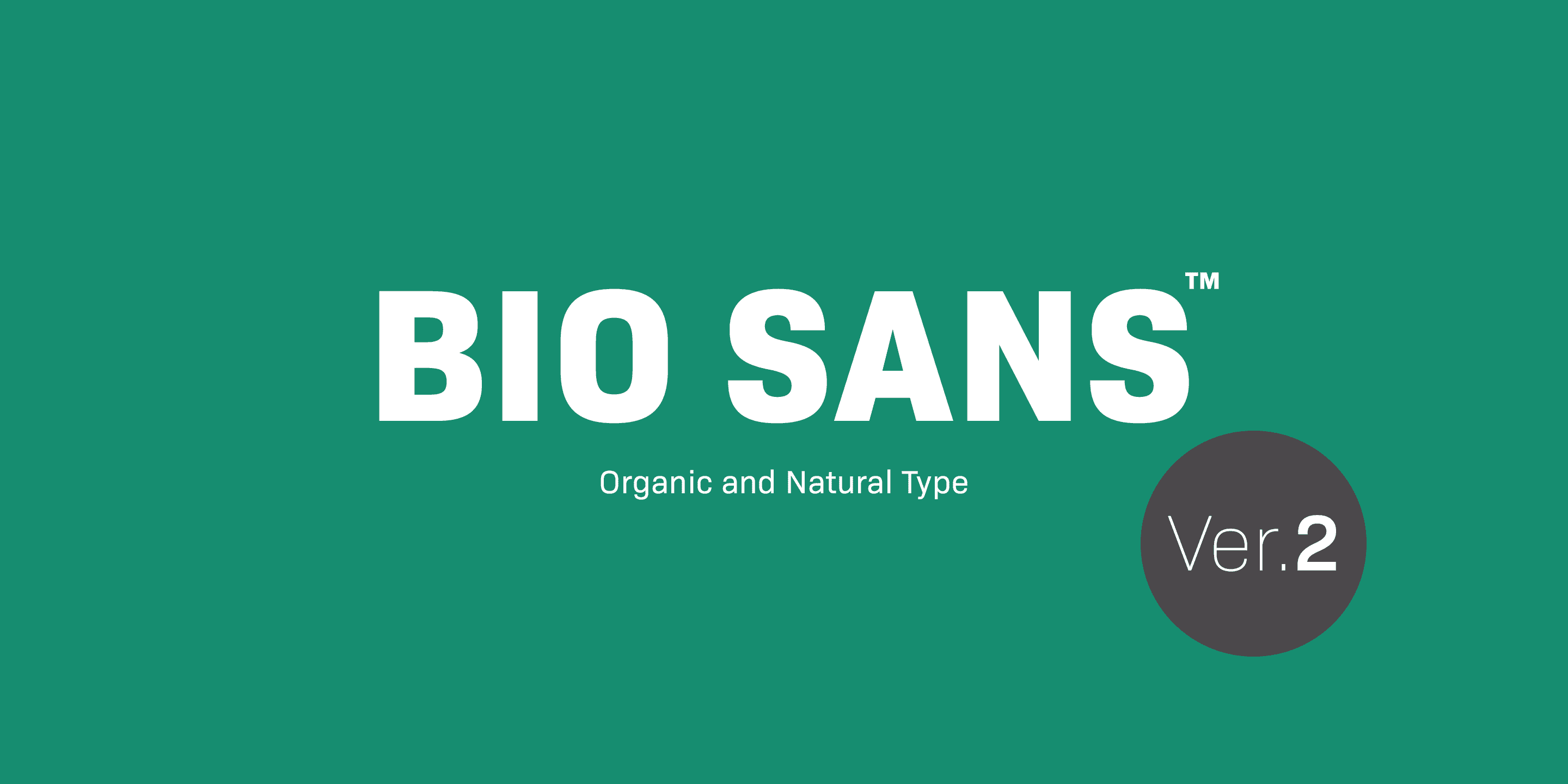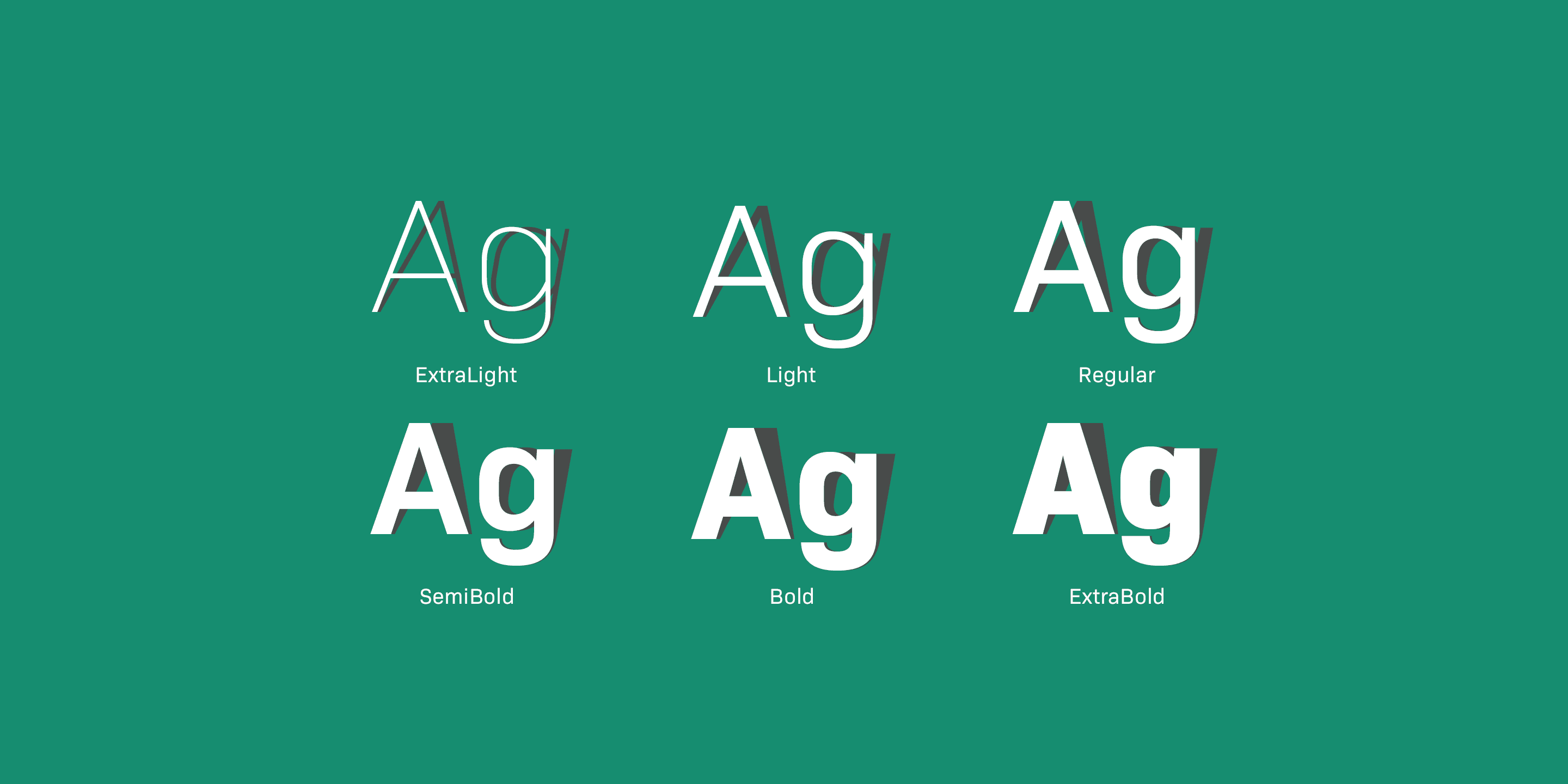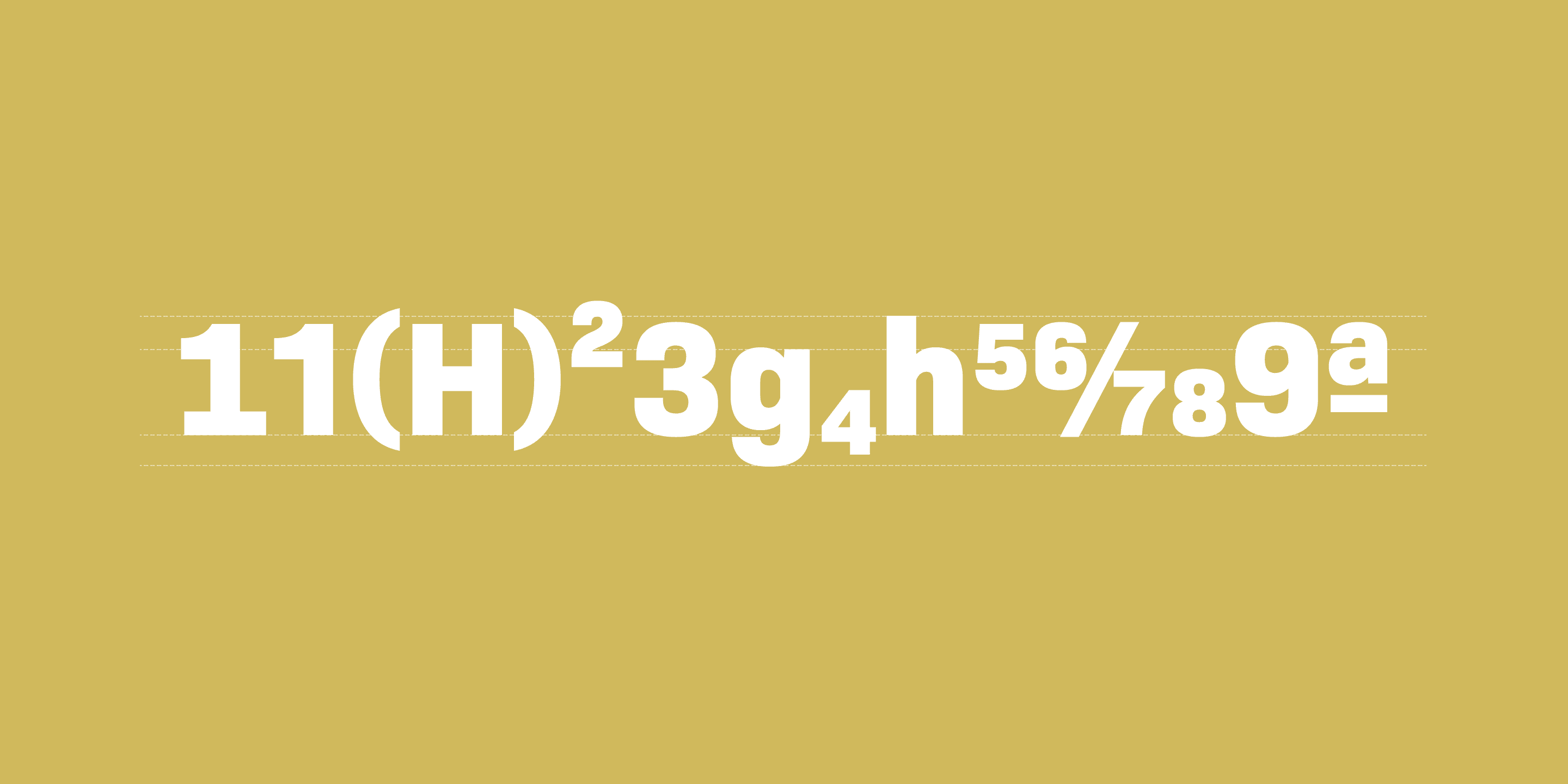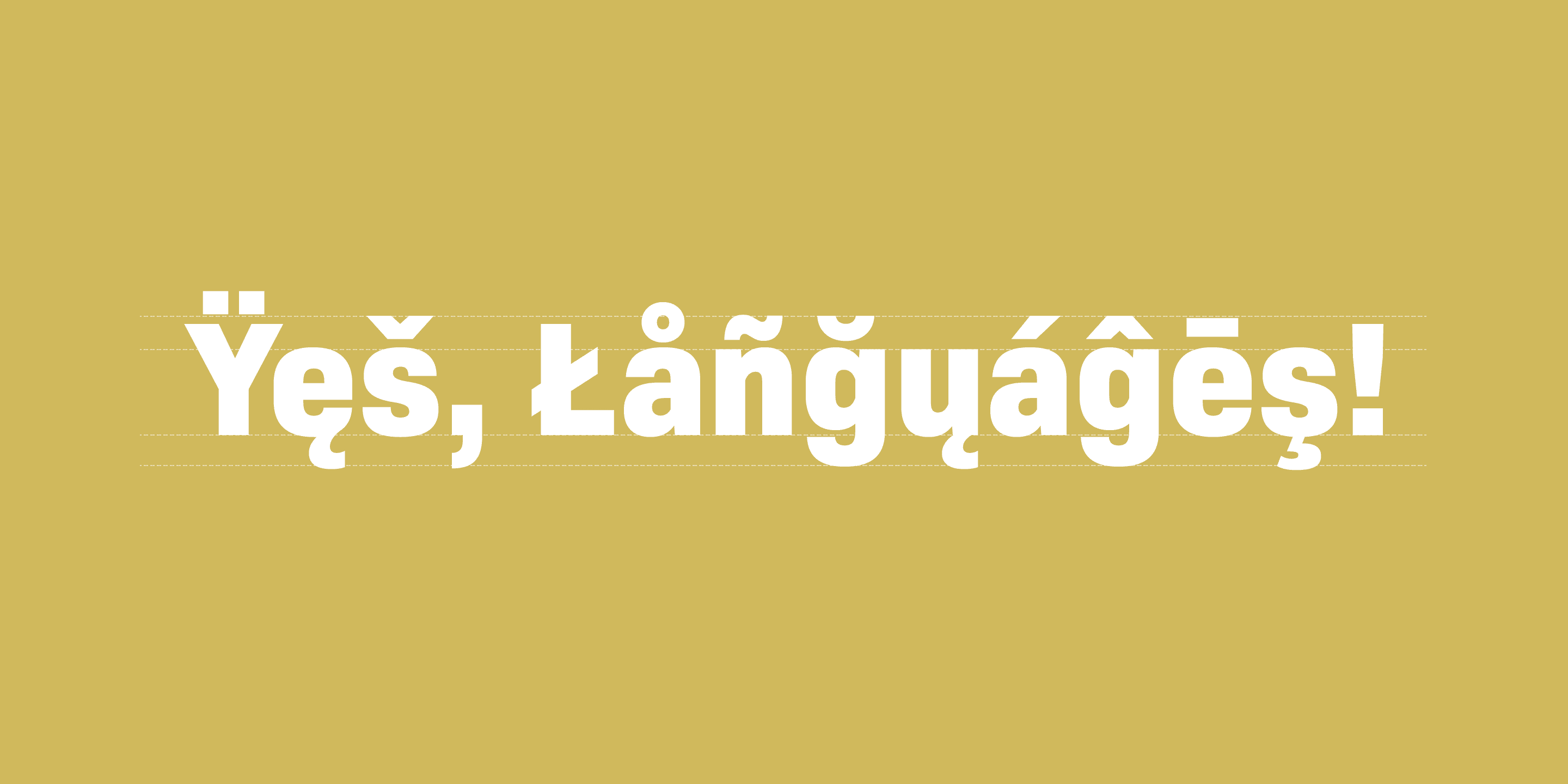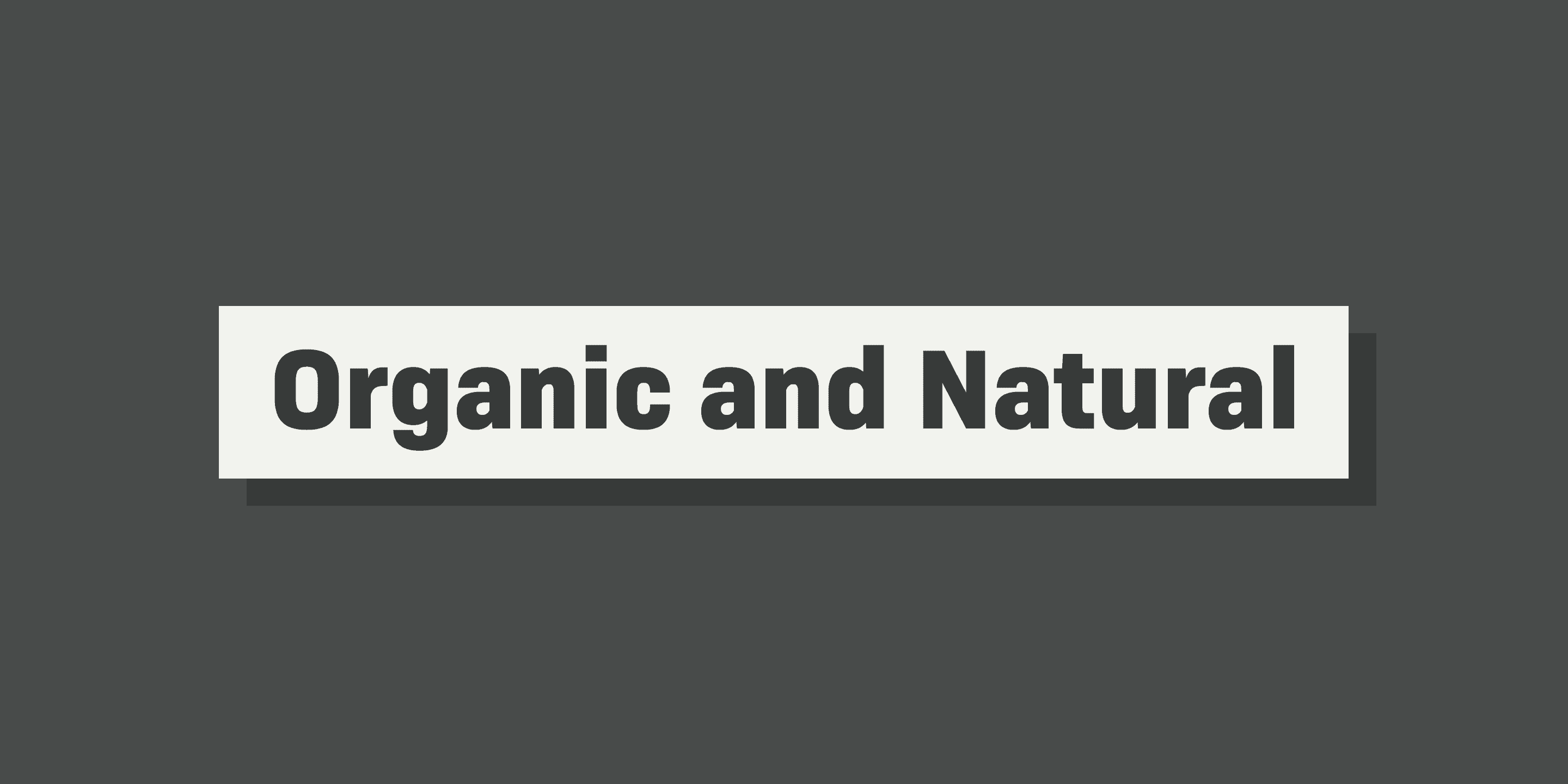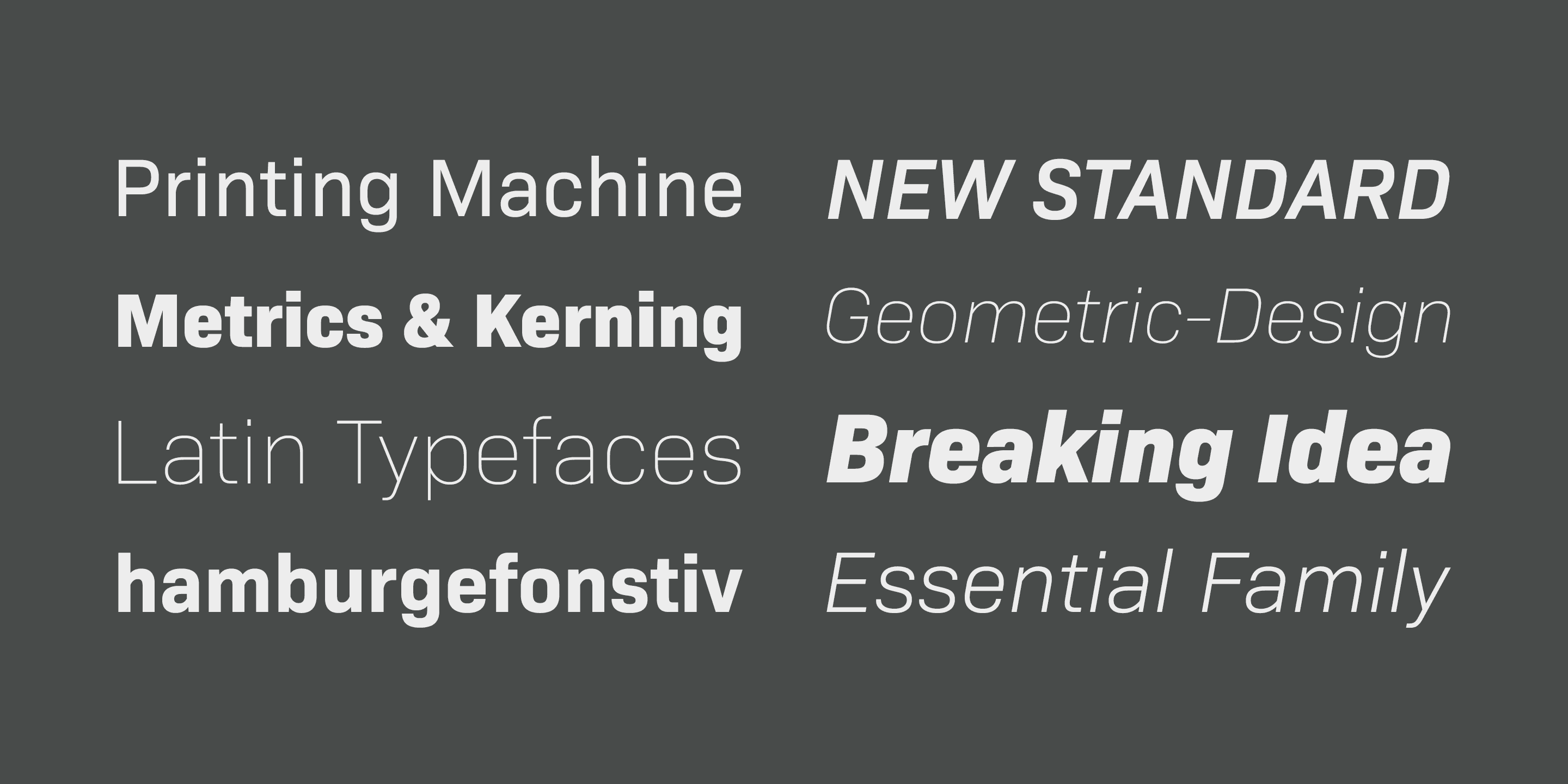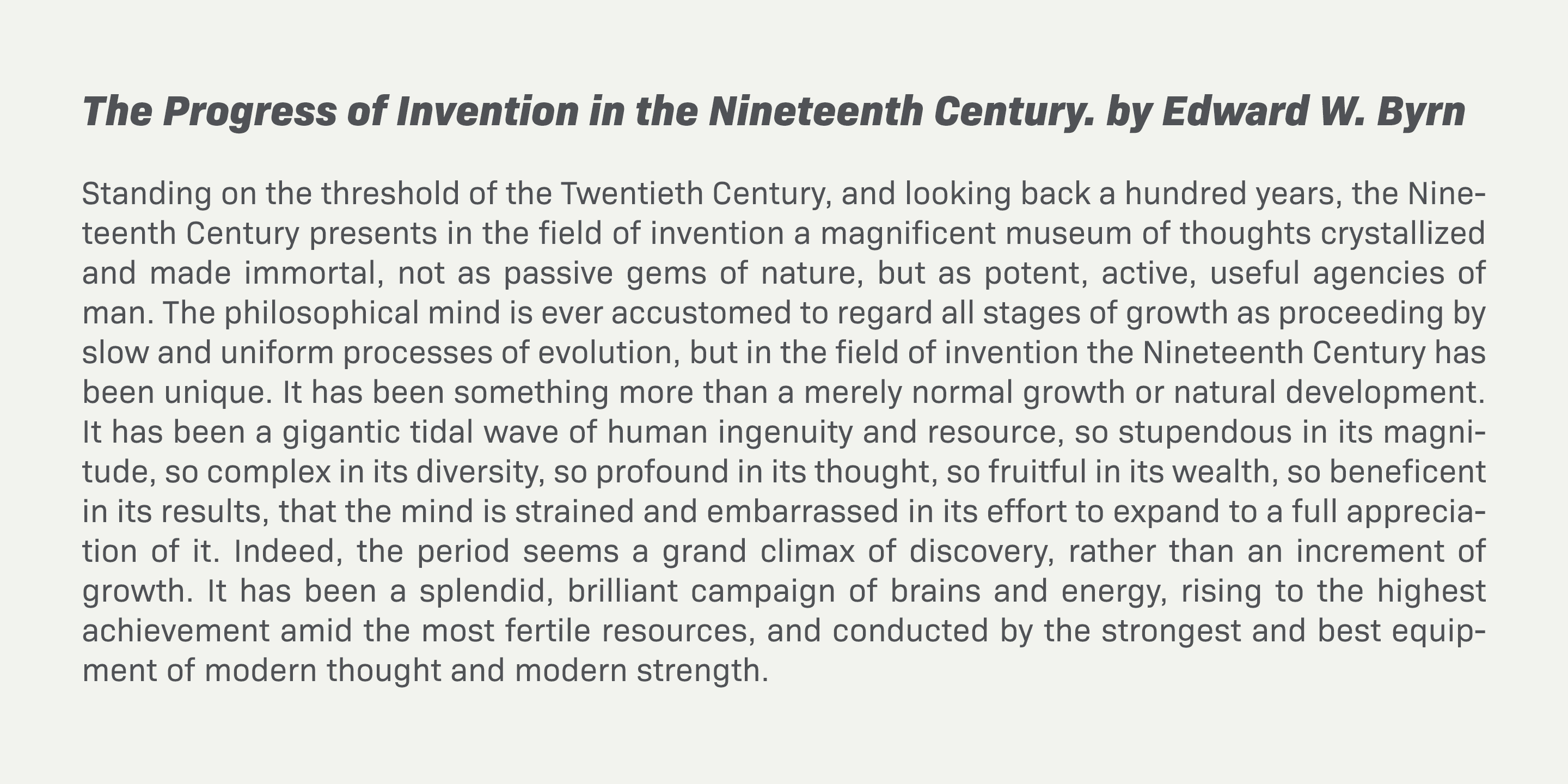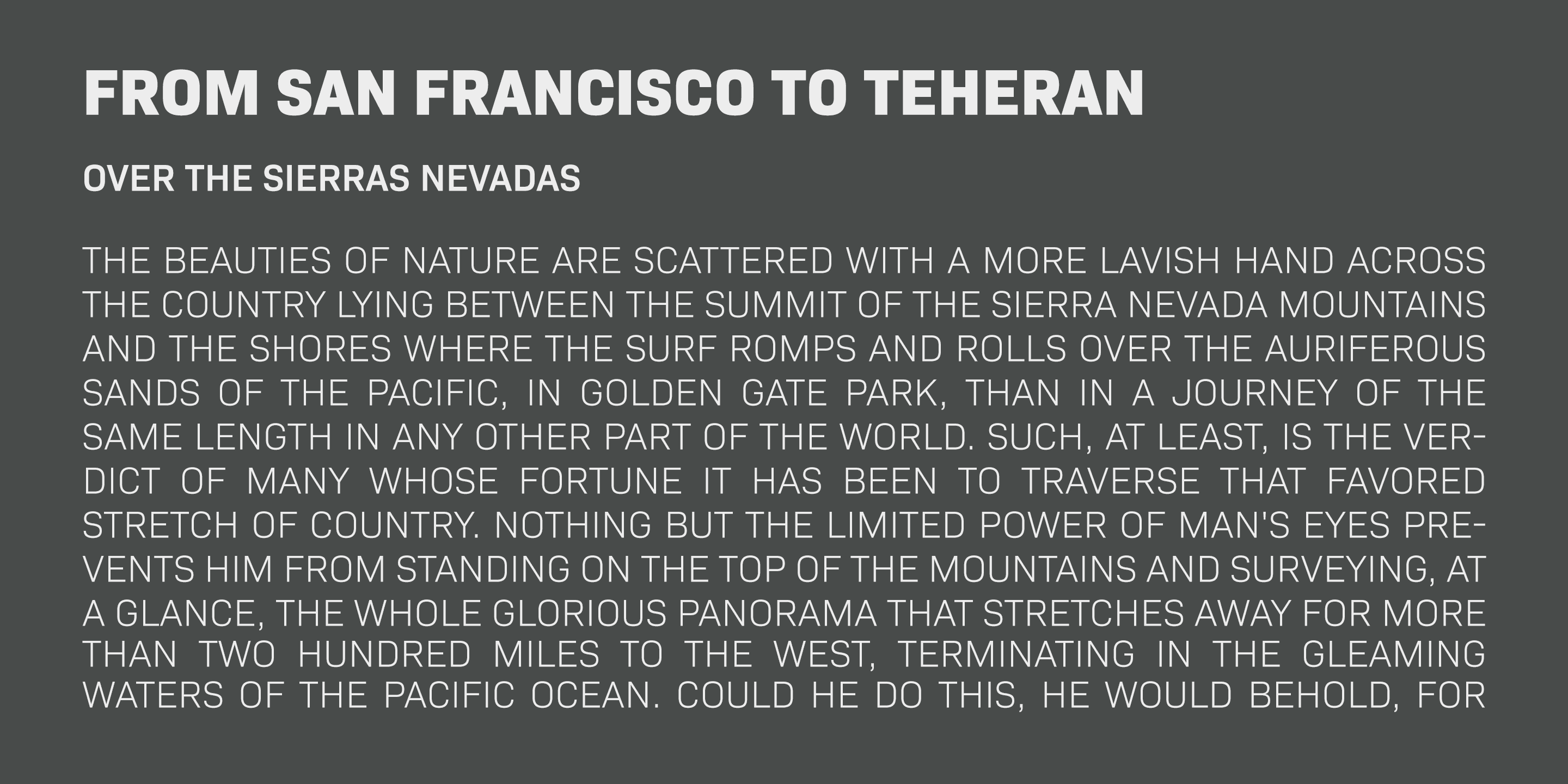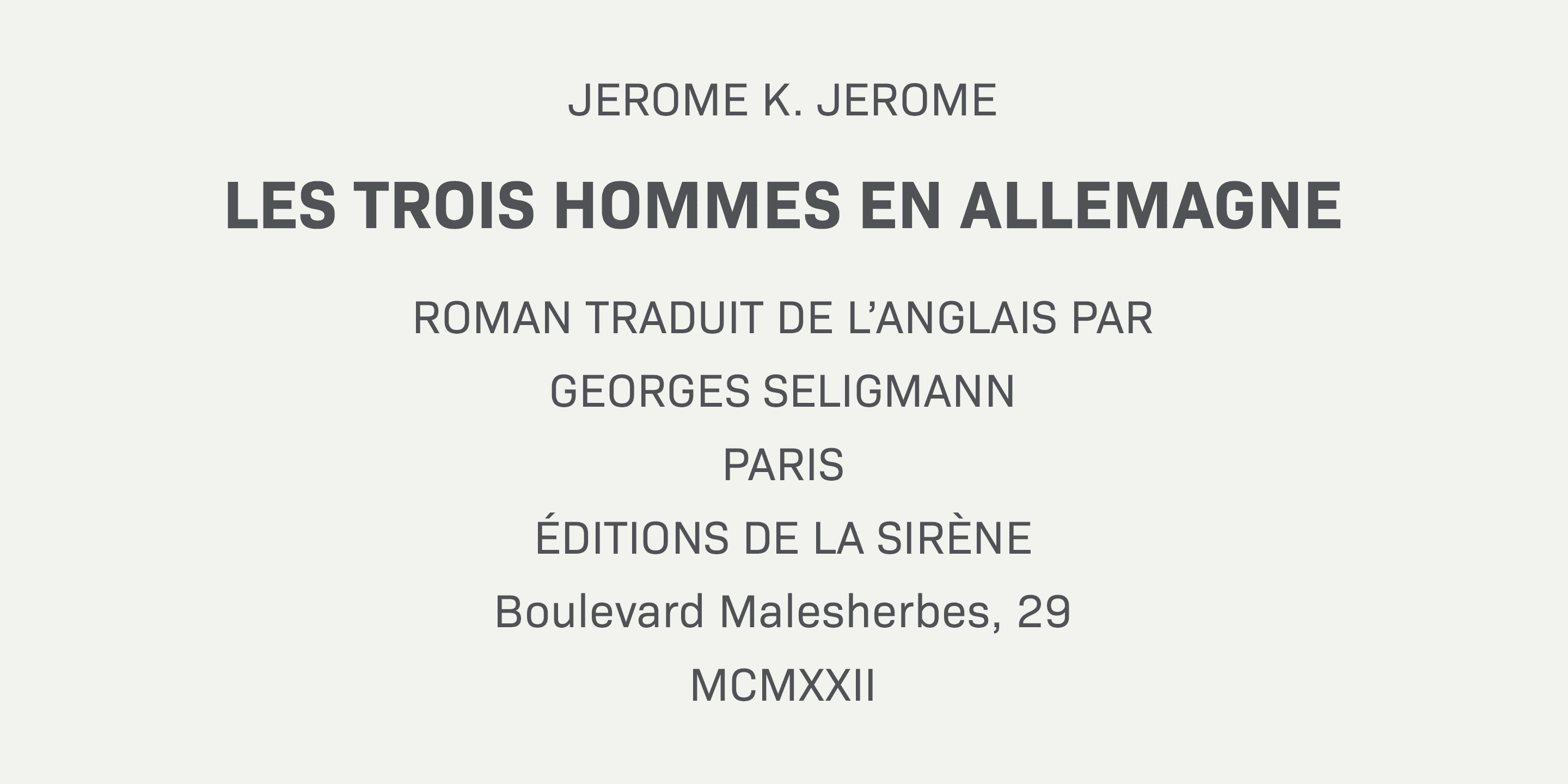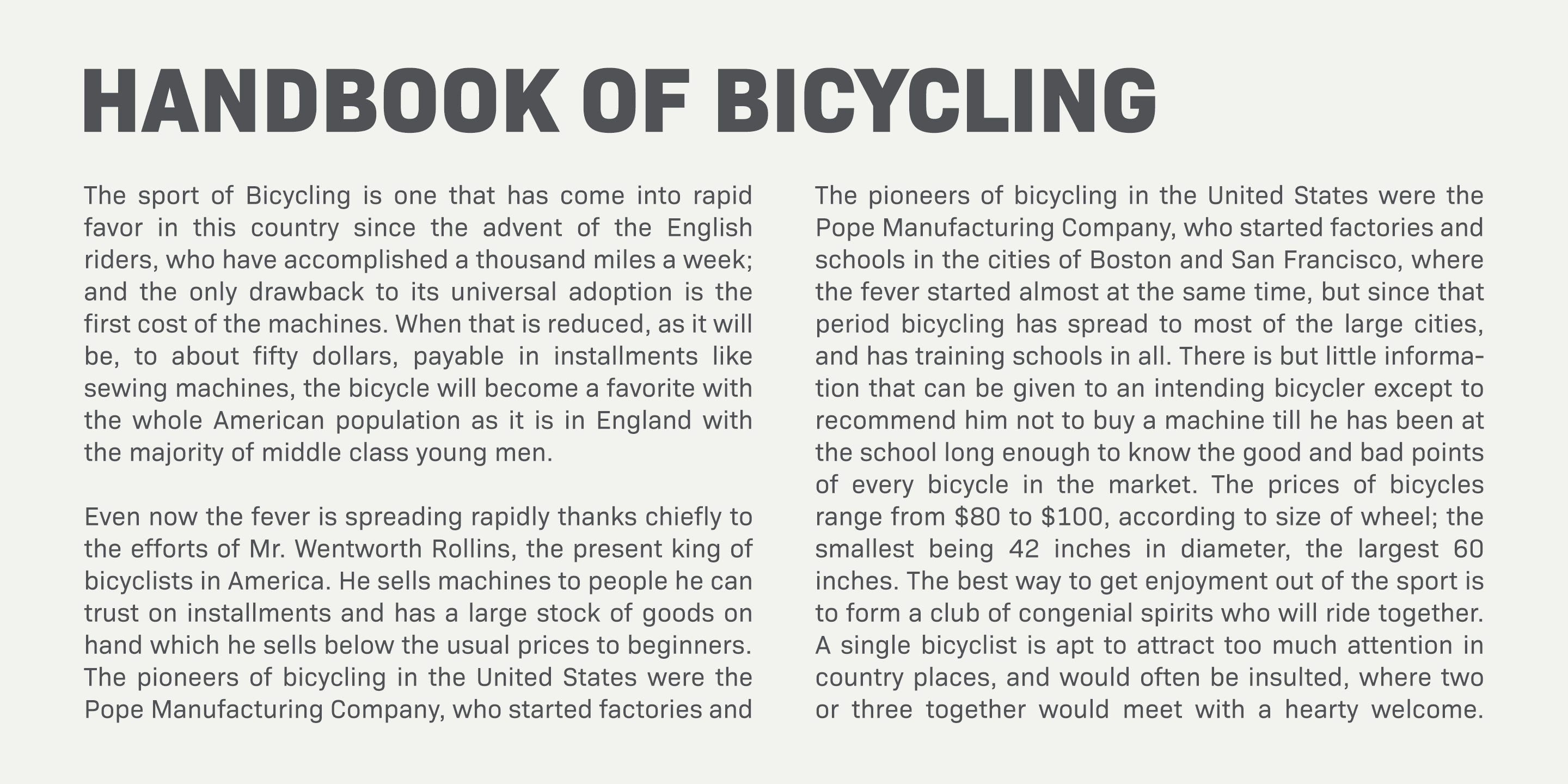
The basic skeleton of their letterform was designed geometrically and the sophisticated design gives them universality, neutrality and sense of unity for the use in all media, all purposes and their large x-heights makes this family legible and readable even on small size screen.
Bio Sans supports almost all European languages: Western, Central, South Eastern Europeans and afrikaans. And proportional figures, superior figures, inferior figures, denominators, numerators, fractions, ordinals and case-sensitive-forms can be accessed by using OpenType features.